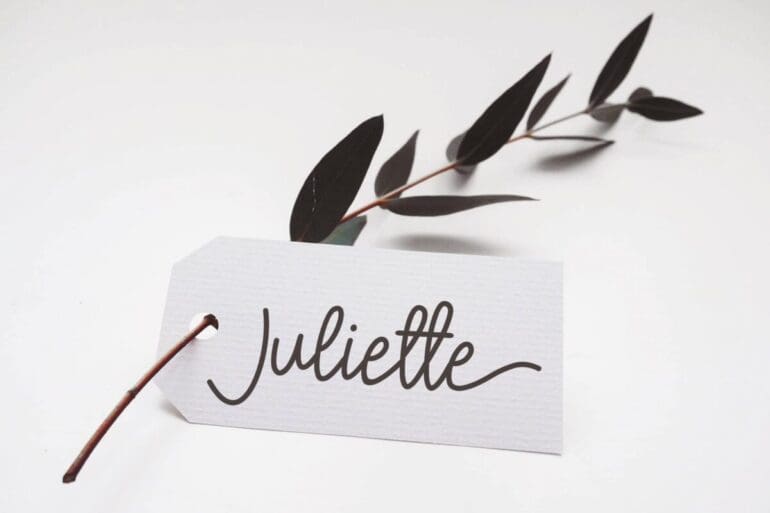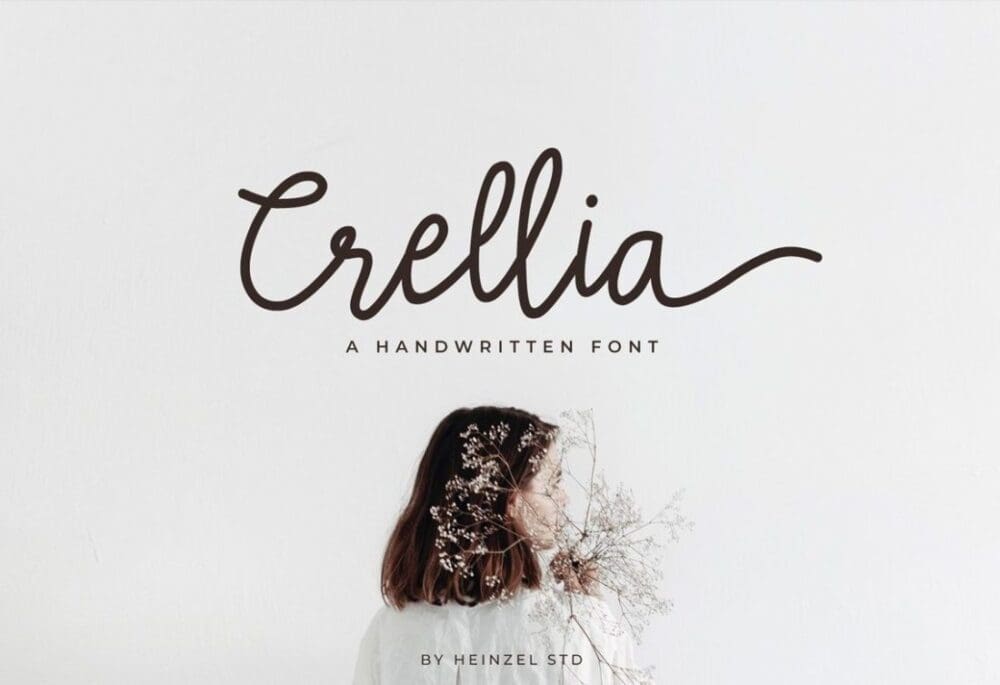
Crellia Handwritten Font
Crellia Handwritten Font is a new modern & fresh style that makes this font looks elegant, natural, stylish, and perfect for any awesome projects that need handwriting taste. Crellia would perfect for photography, watermark, social media posts, logos & branding, invitation, product designs, label, stationery, special events or anything that need handwriting taste.